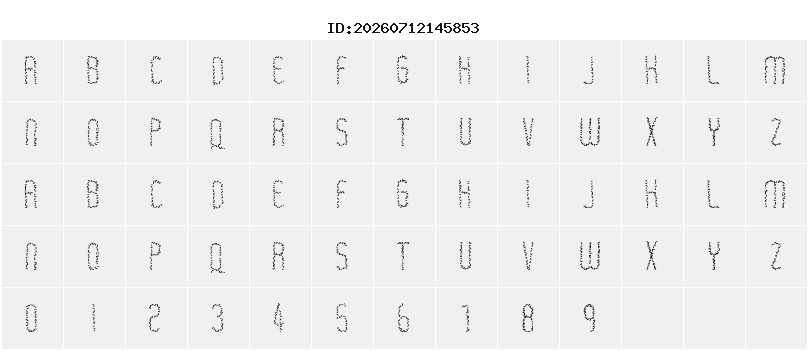
• Font Name: Rastaerize
• Font ID: Rastaerize:Version 1.00
• Full Font Name: Rastaerize
• Version: Version 1.00 November 17, 2015, initial release
• PostScript Name: Rastaerize
• Character Count: 71
• Designer: Max Infeld Xerographer Fonts
• Manufacturer: Xerographer Fonts
• Description: Made by Xerographer Fonts in Chico,California
About Rastaerize.ttf
Rastaerize.ttf is a modern, elegant sans-serif font designed for ultimate readability and visual harmony. Perfect for branding, headlines, web design, and print materials.